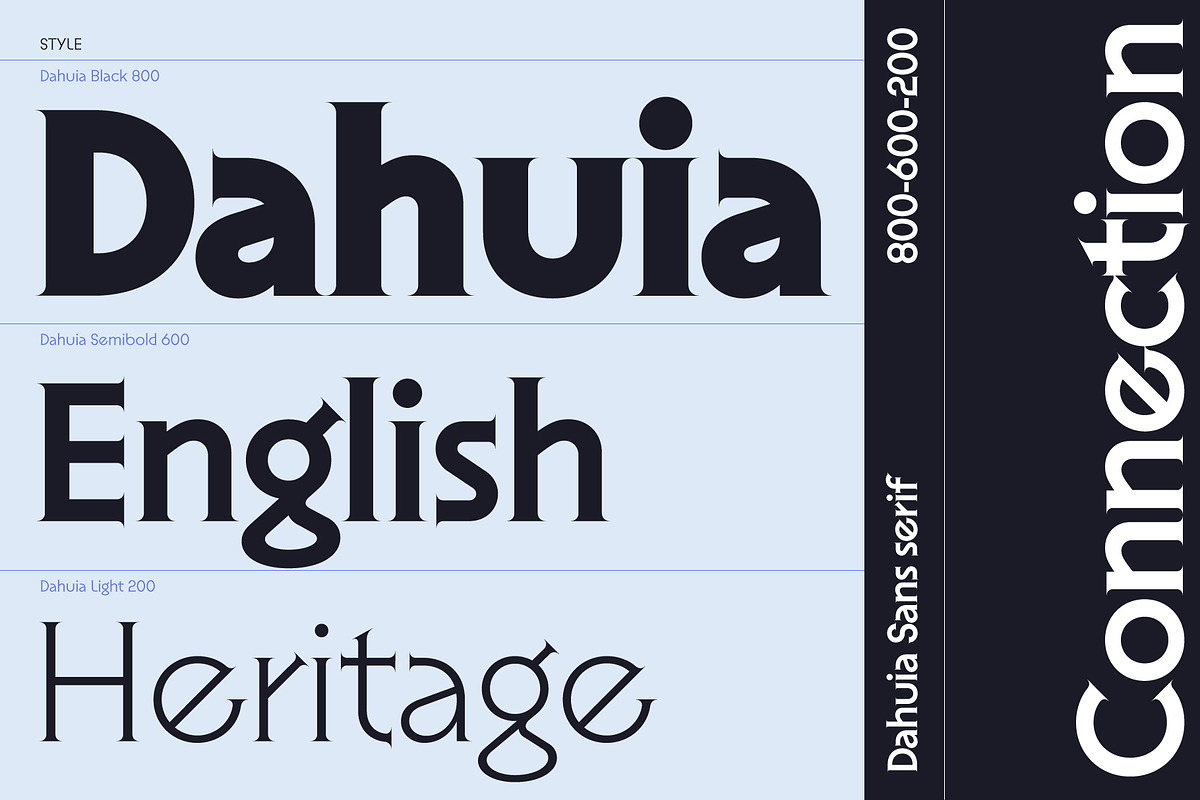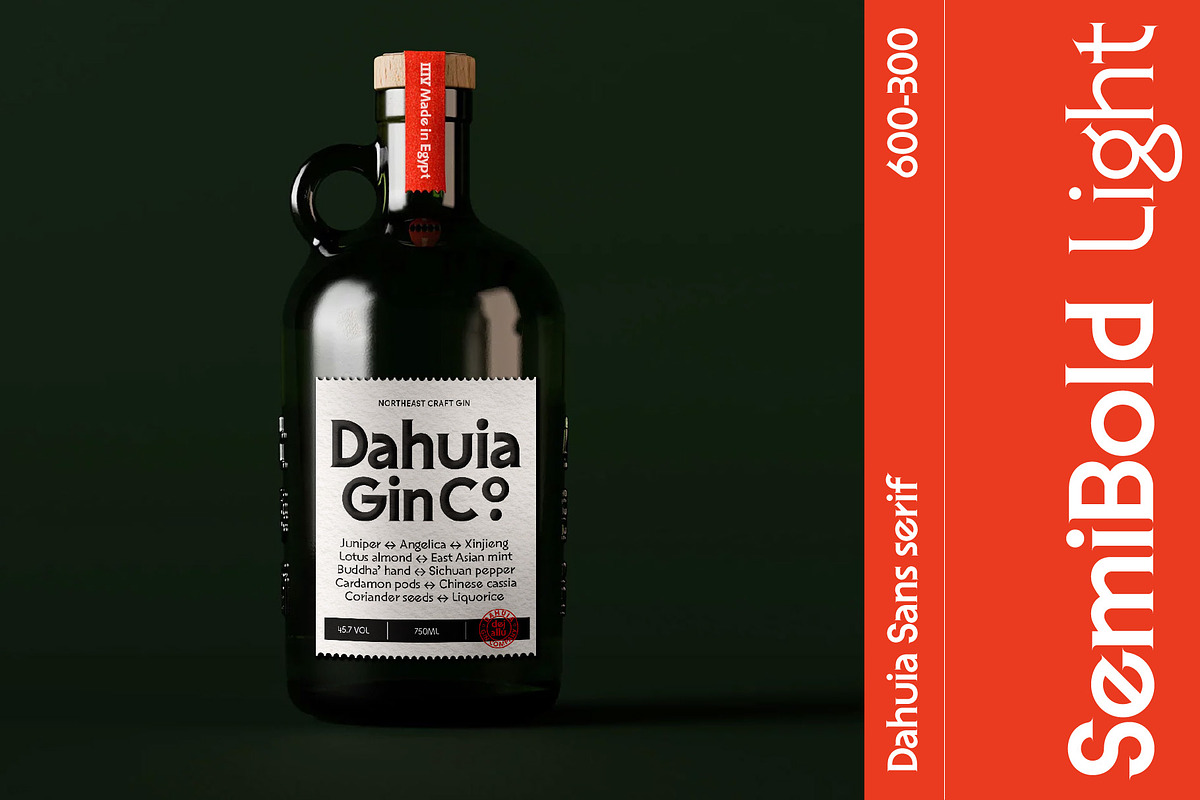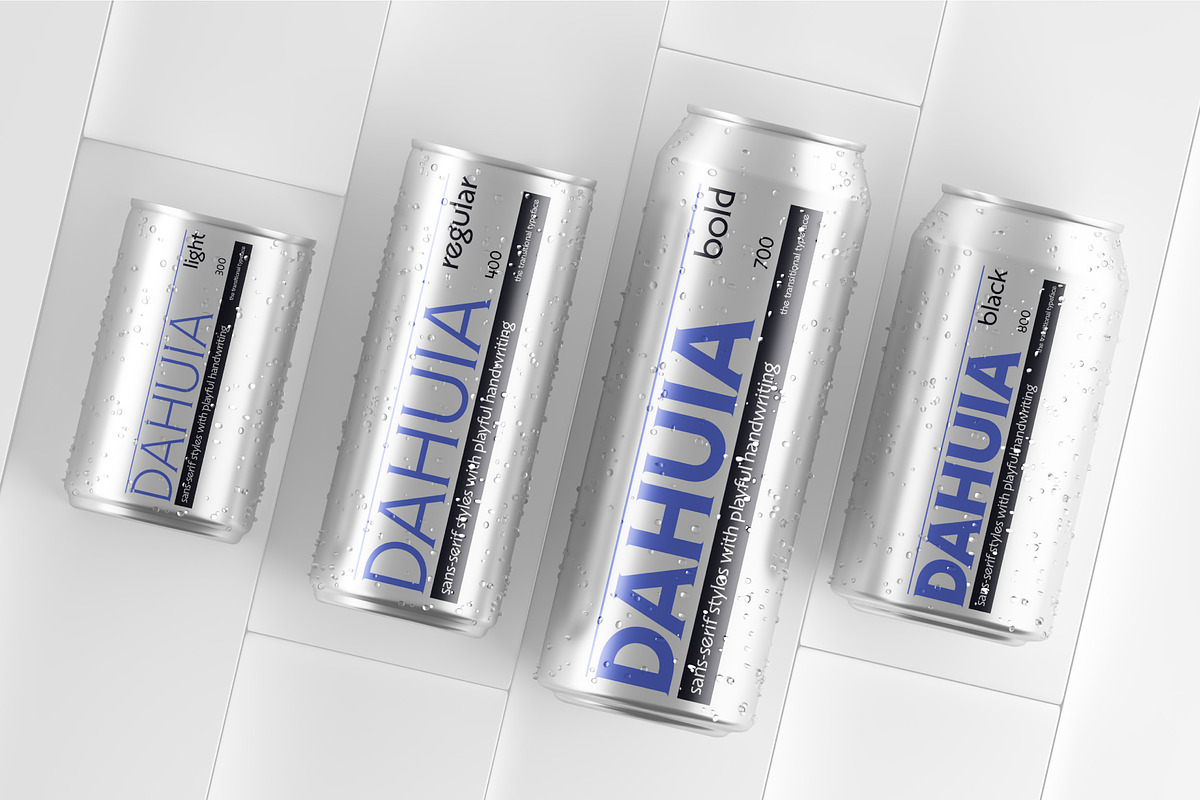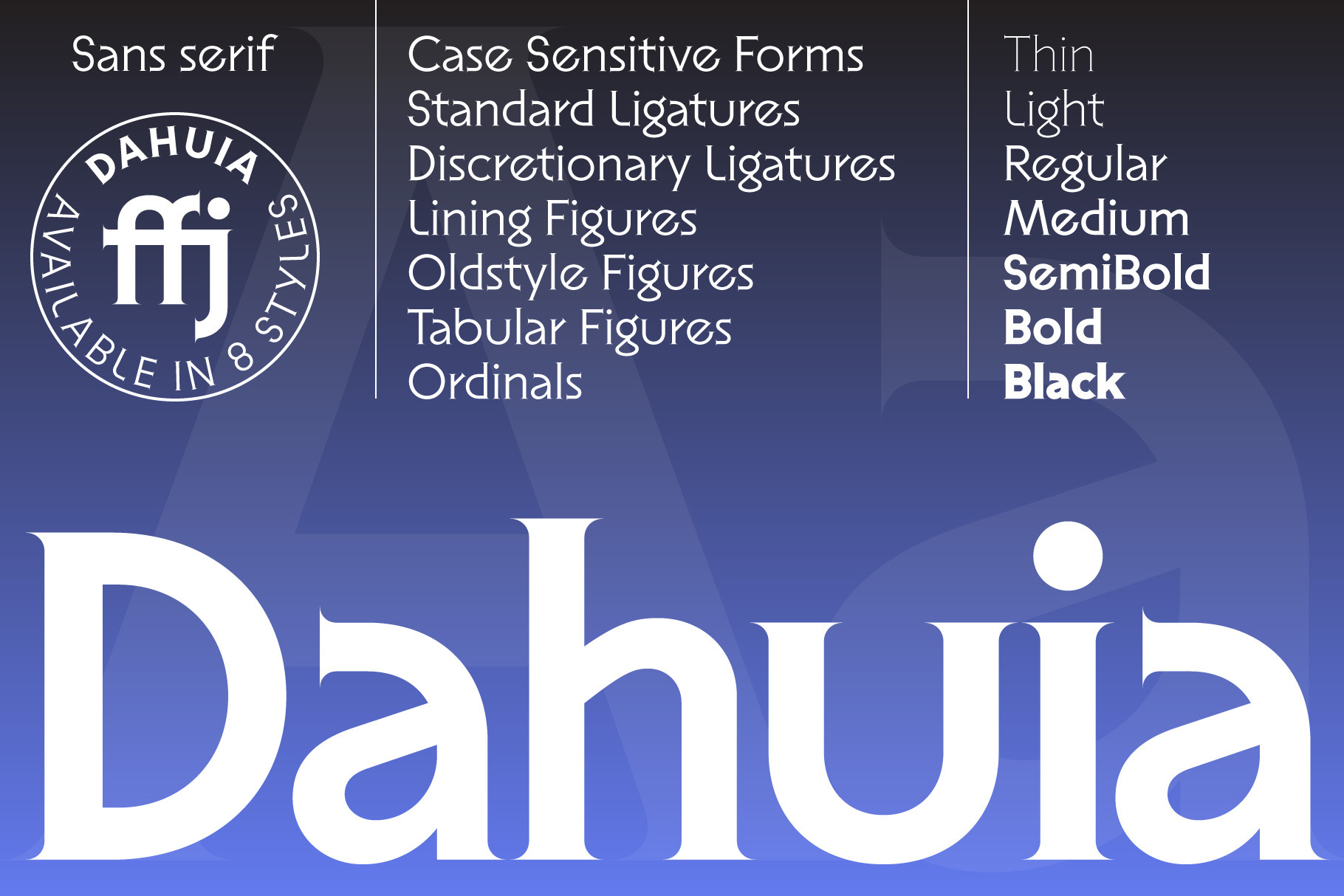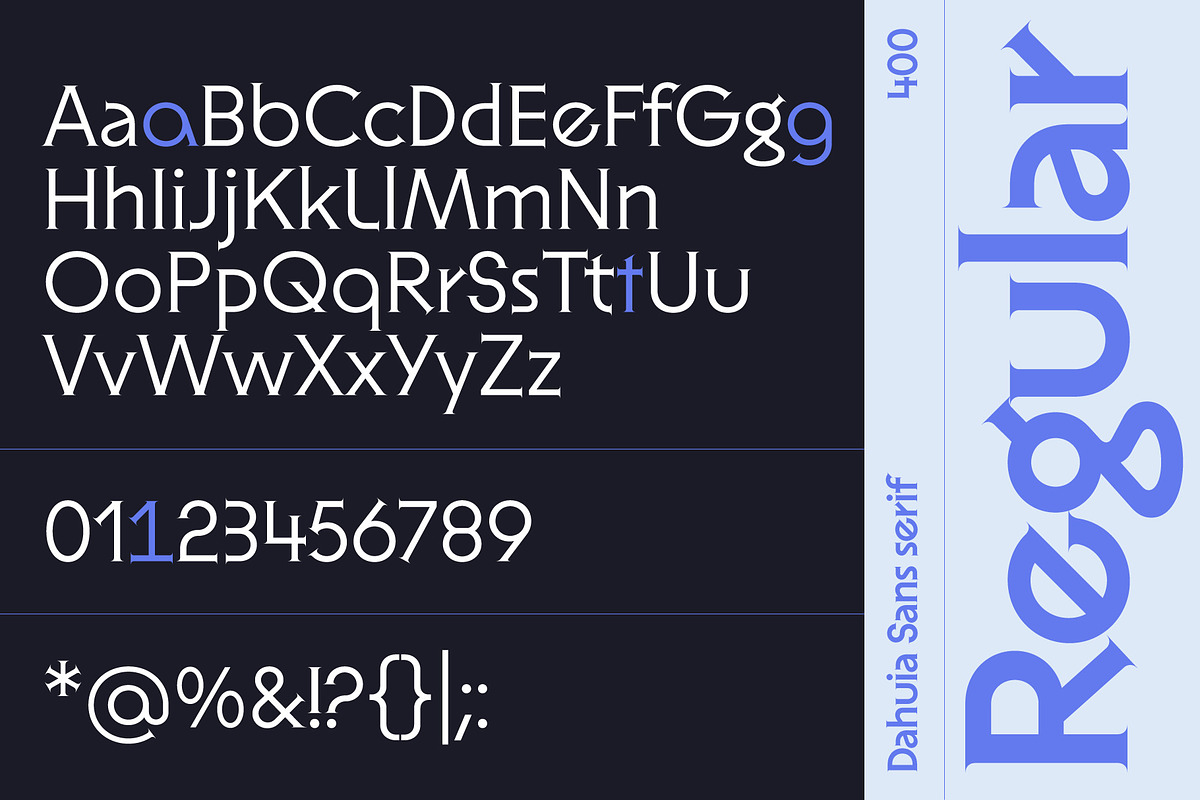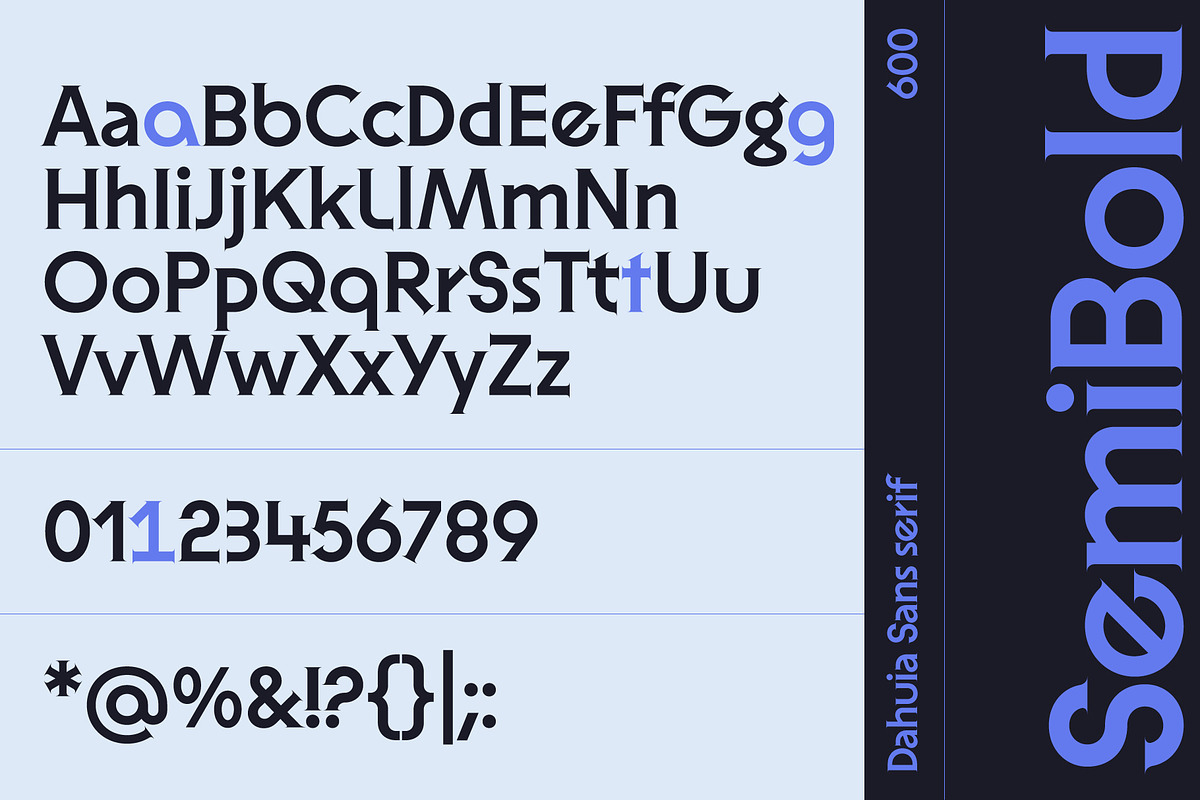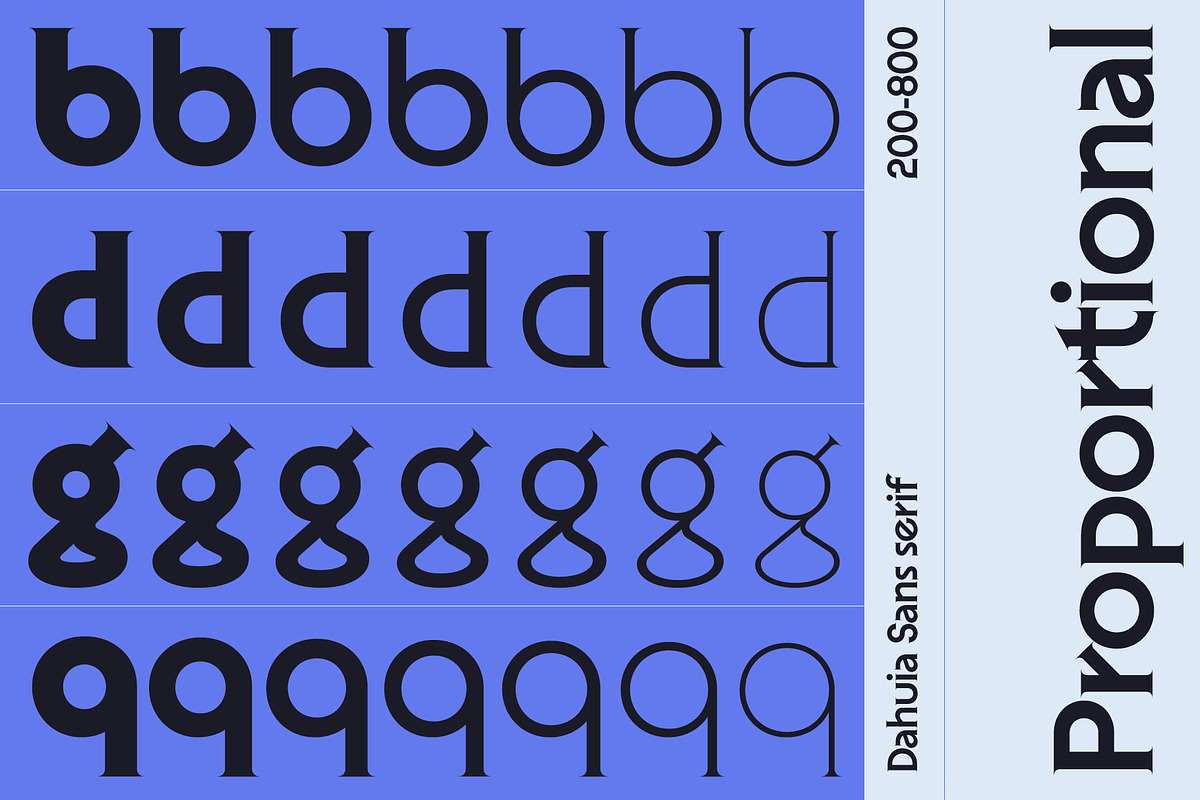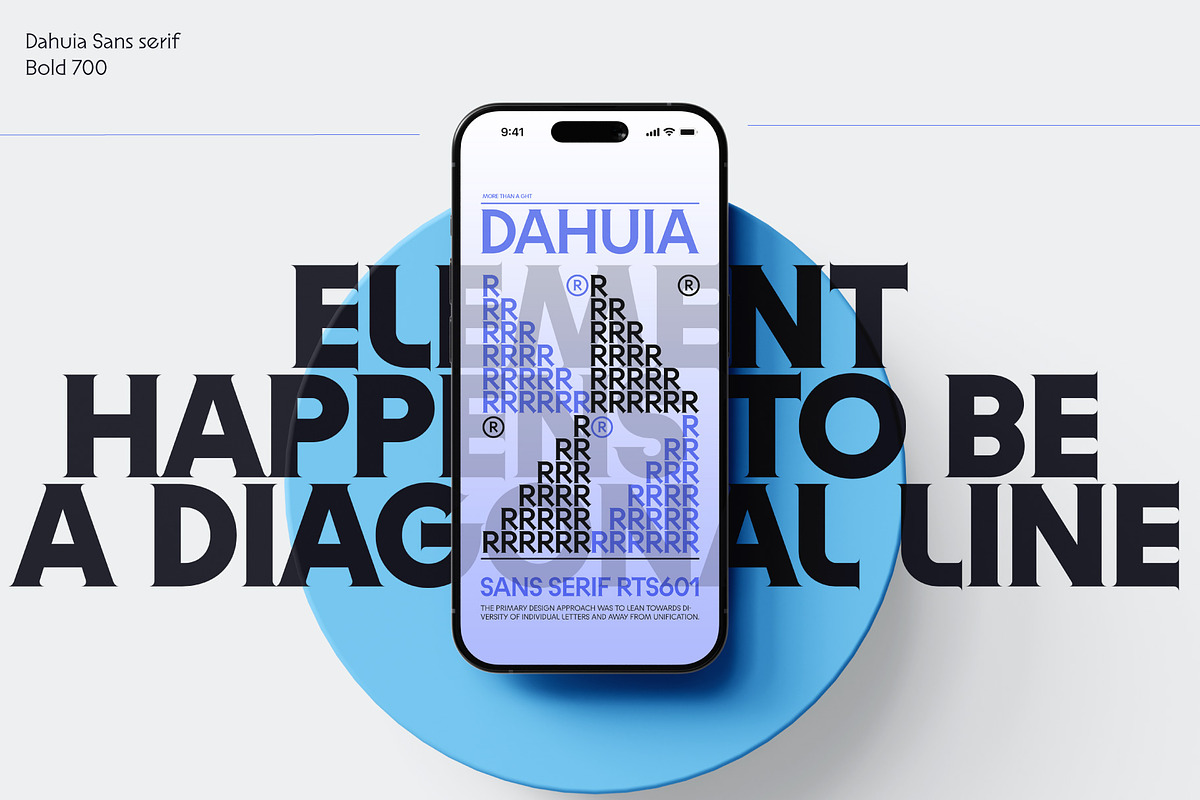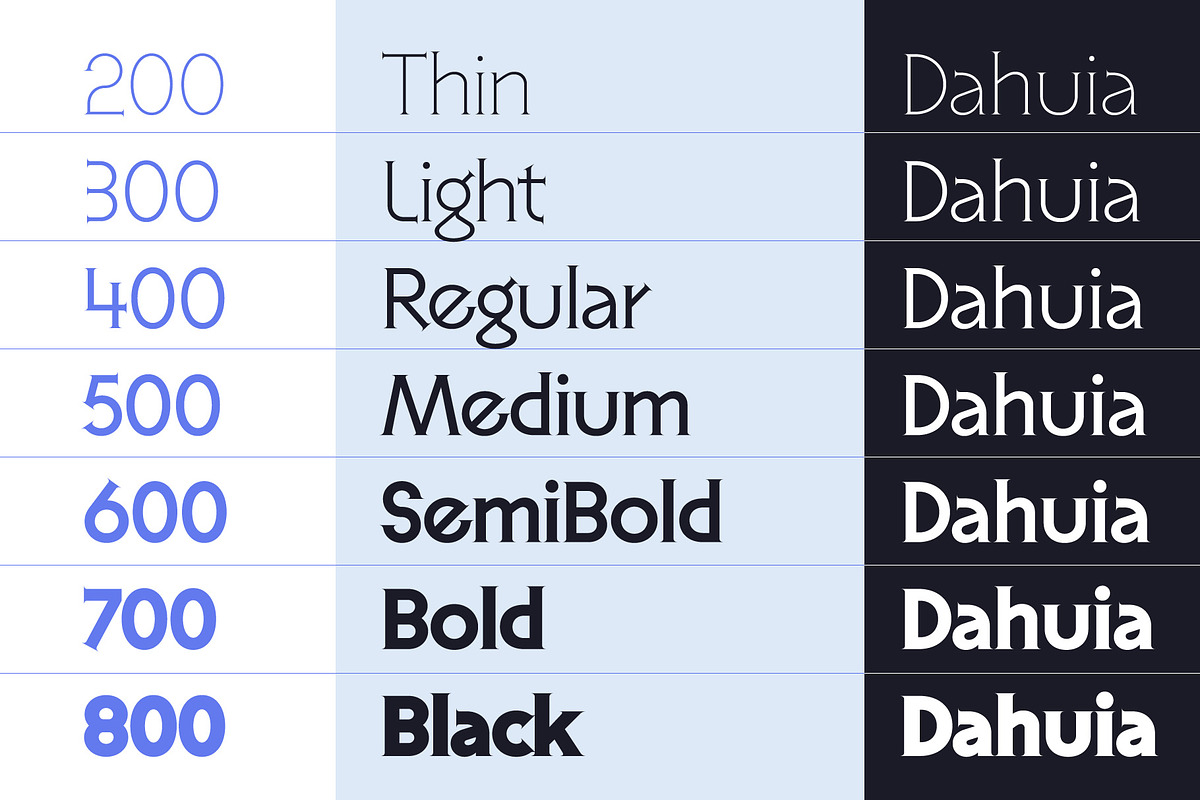
Dahuia - Sans Serif Font
Introducing Dahuia, a Sans Serif typeface offering seven elegant and unique styles: Thin, Light, Regular, Medium, Semibold, Bold, and Black. From delicate Thin to powerful Black, each variant exudes sophistication and versatility, making it perfect for headlines, body text, and everything in between.
With meticulous design and unwavering clarity, Dahuia elevates your projects to new levels of elegance and distinction.
- Dahuia Thin
- Dahuia Light
- Dahuia Regular
- Dahuia Medium
- Dahuia SemiBold
- Dahuia Bold
- Dahuia Black